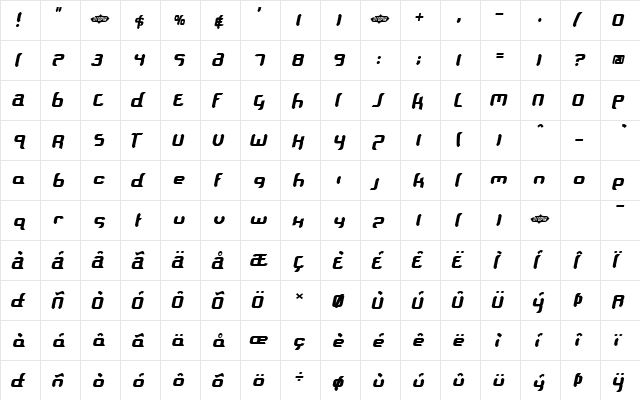
ft90 Regular
Design Context for ft90 Typeface
ft90 is a composed and adaptable typeface that performs quietly and consistently across a wide range of design contexts.
Pro Tip: Pair ft90 with a font of contrasting weight or personality to build a more expressive typographic hierarchy.